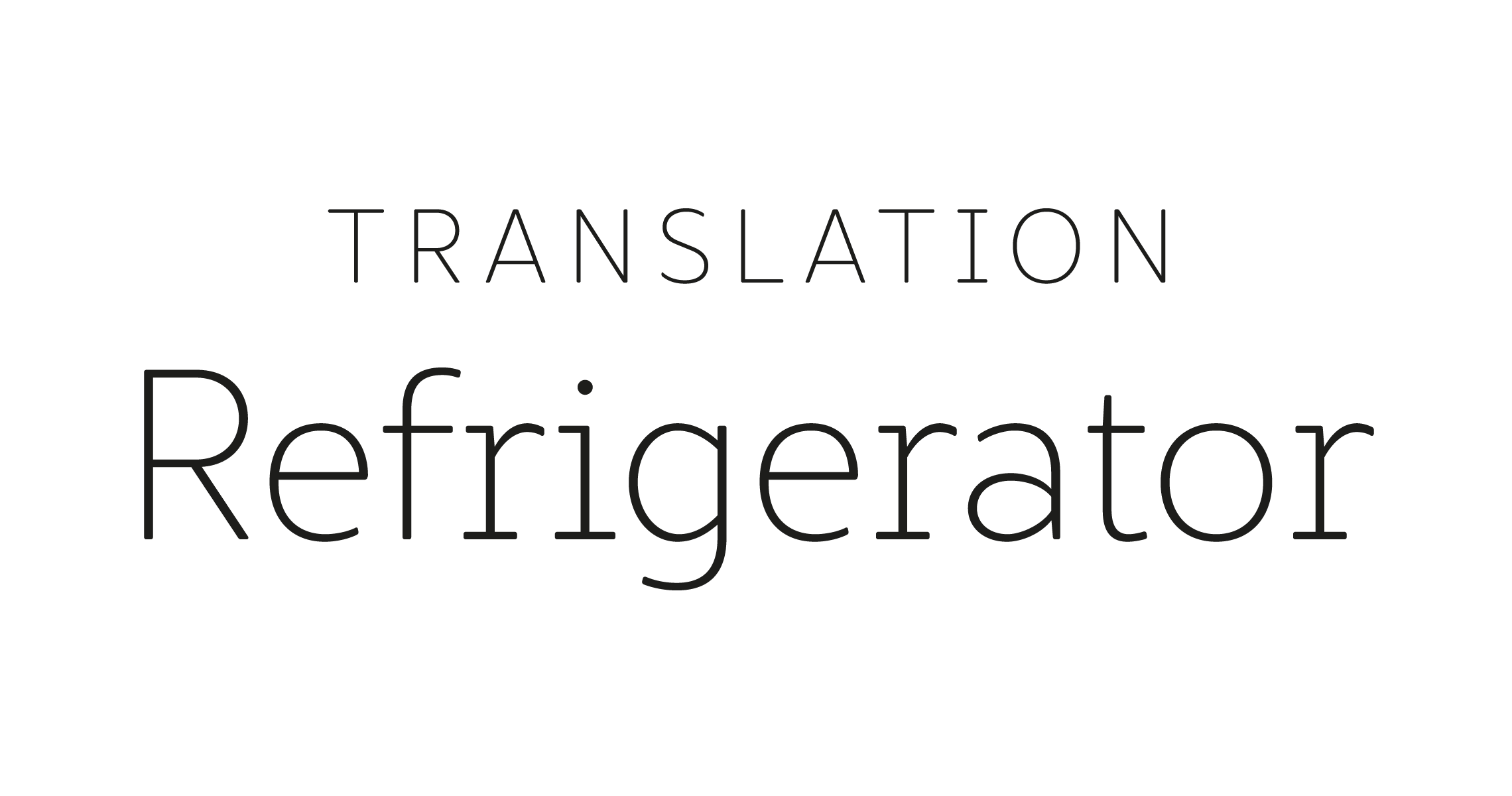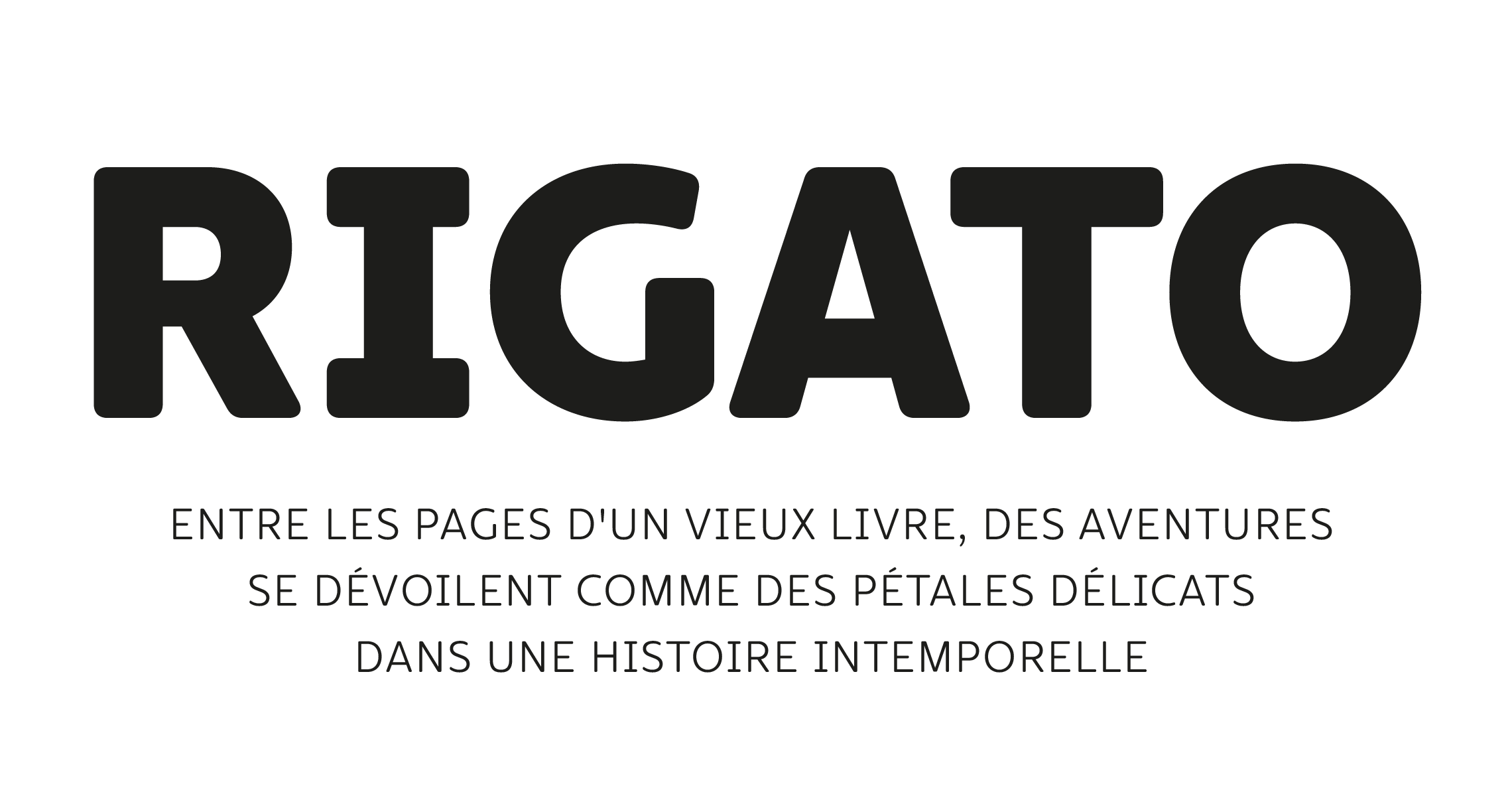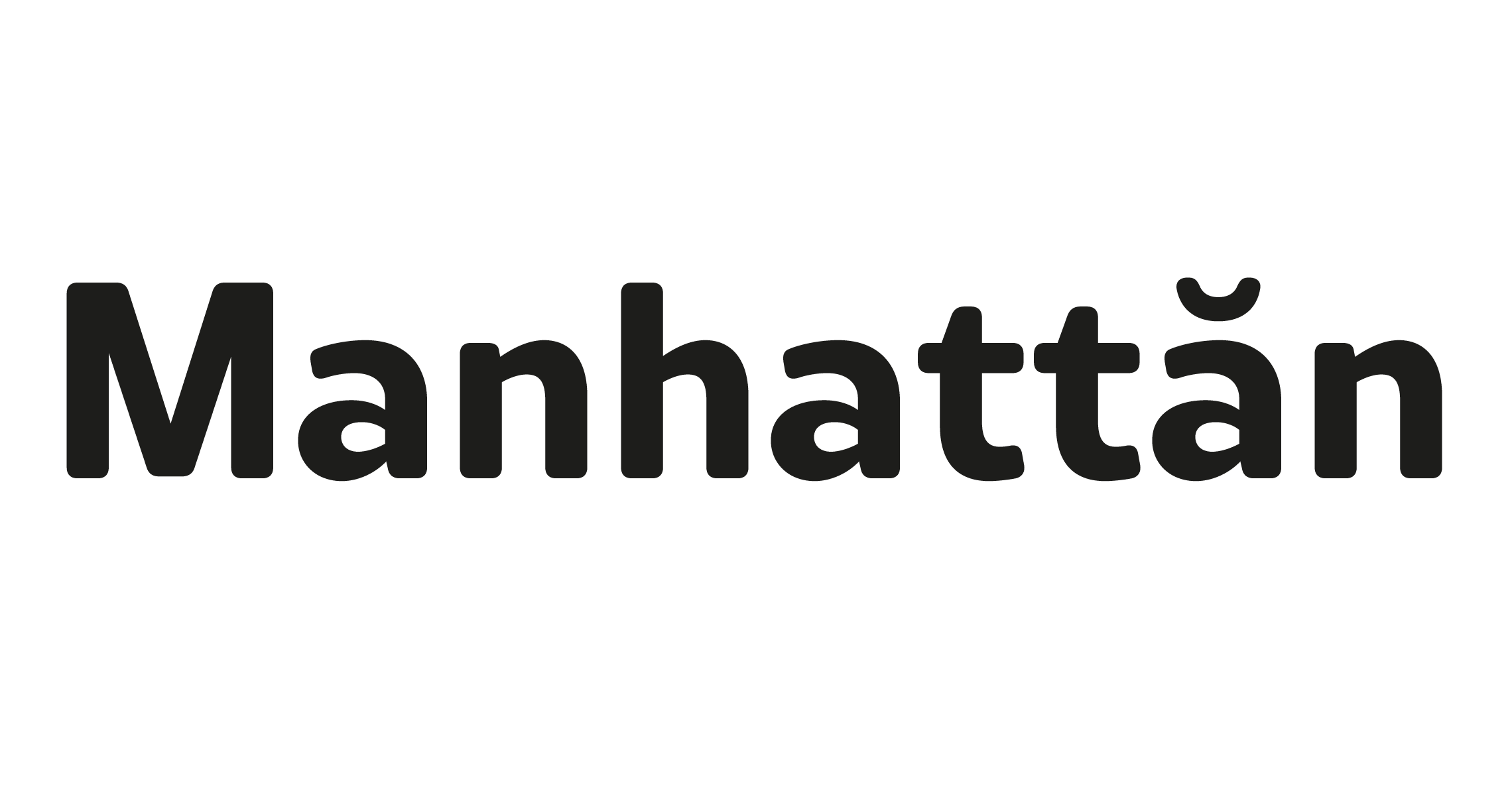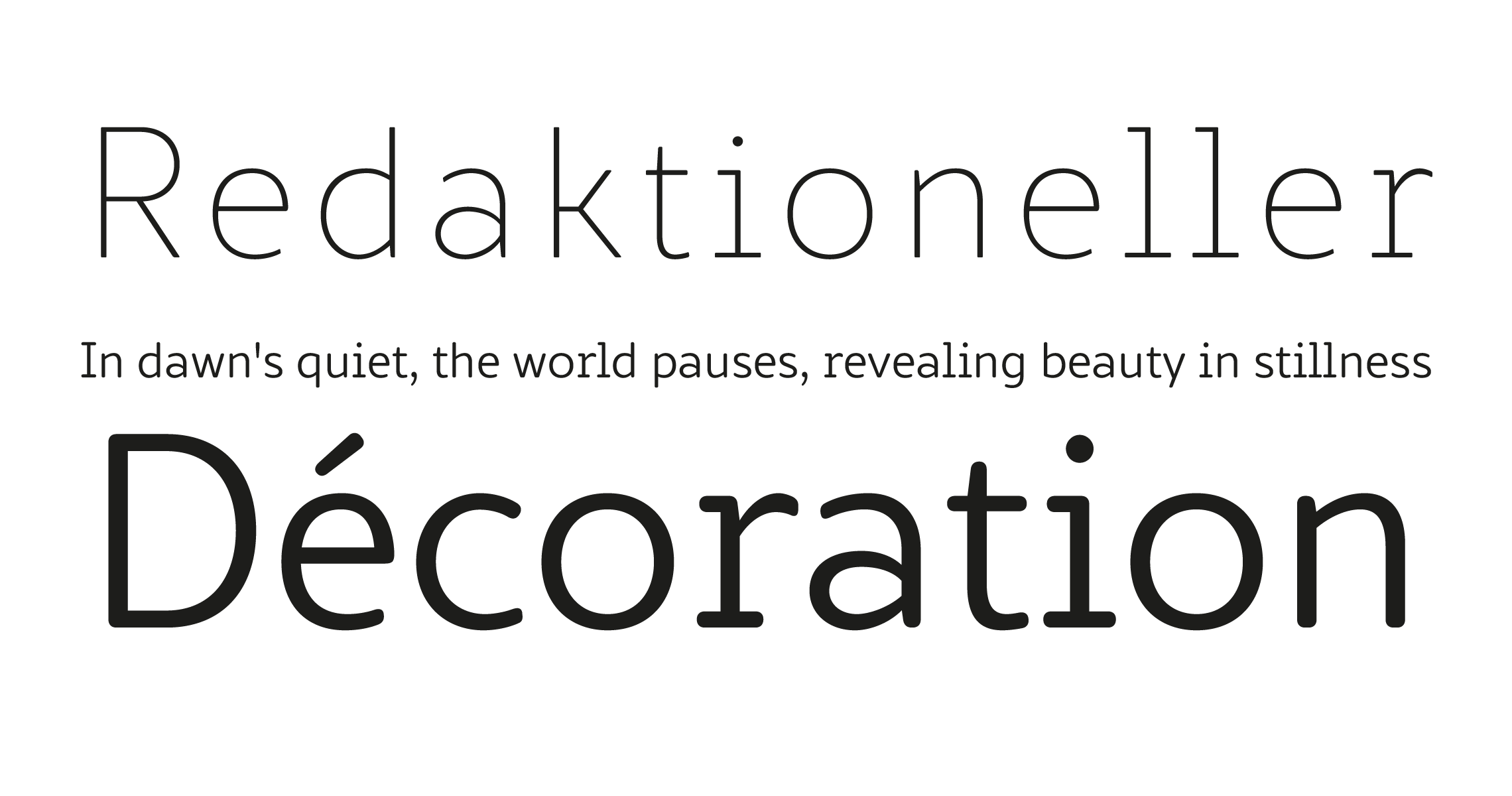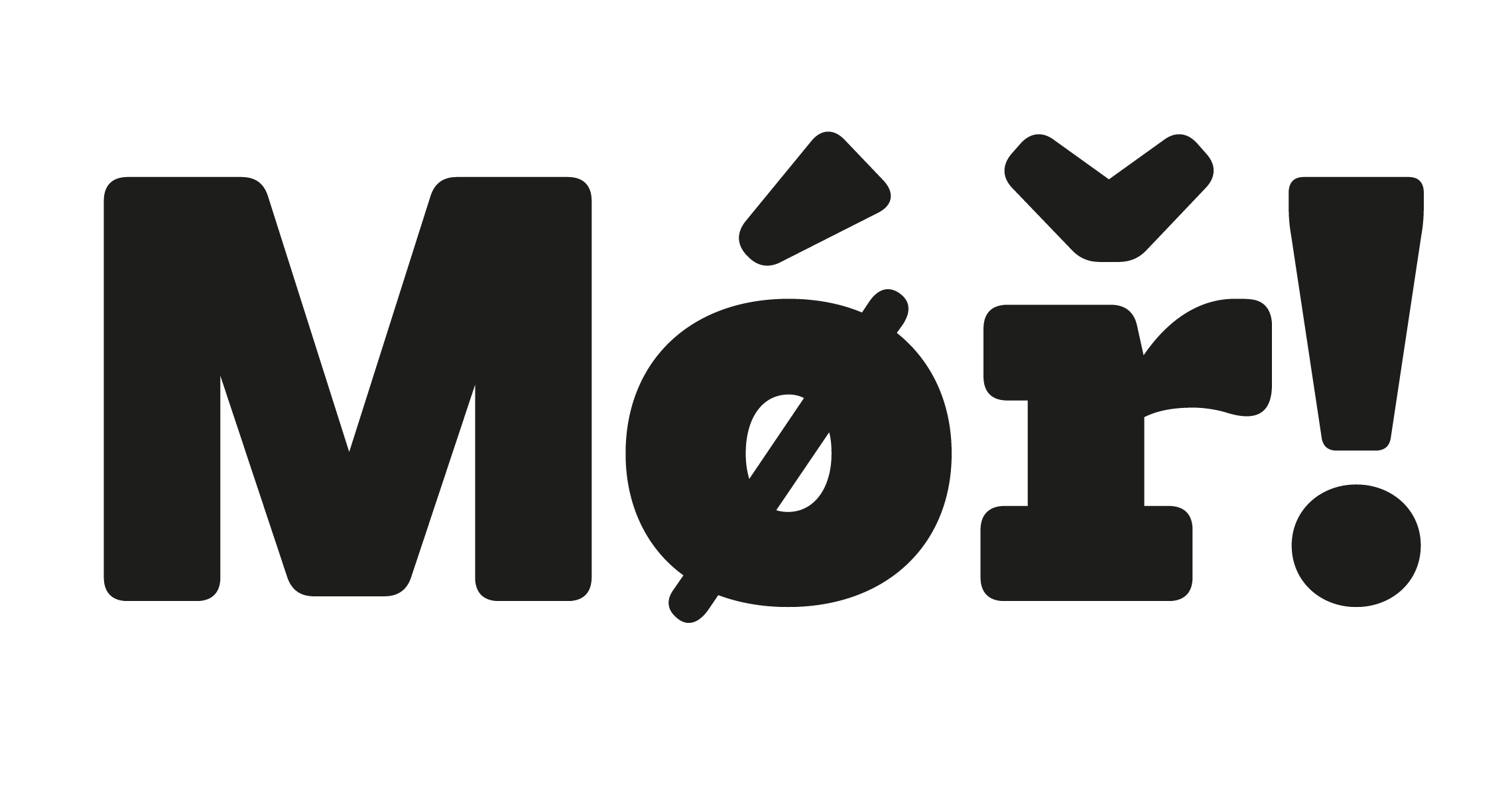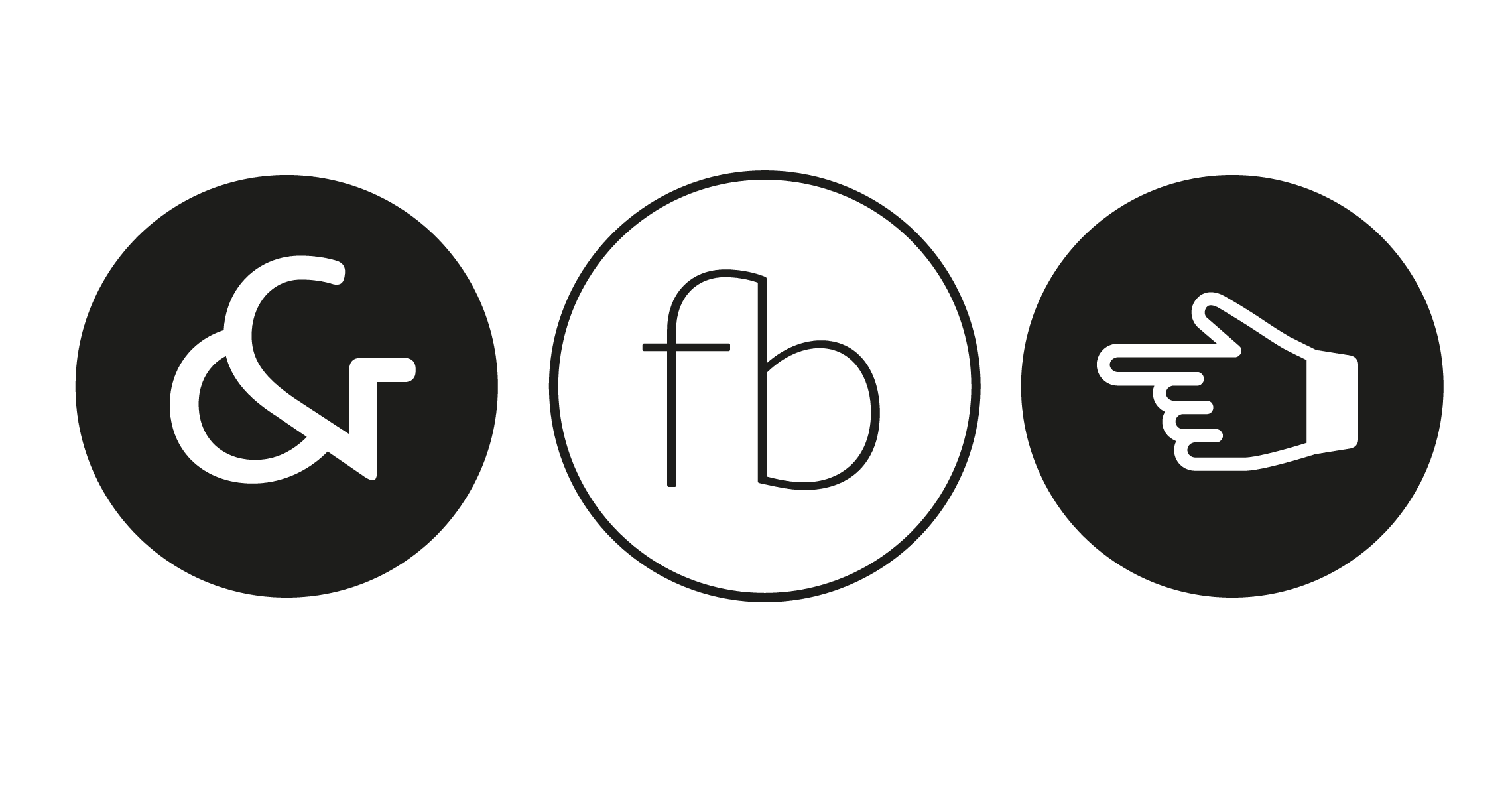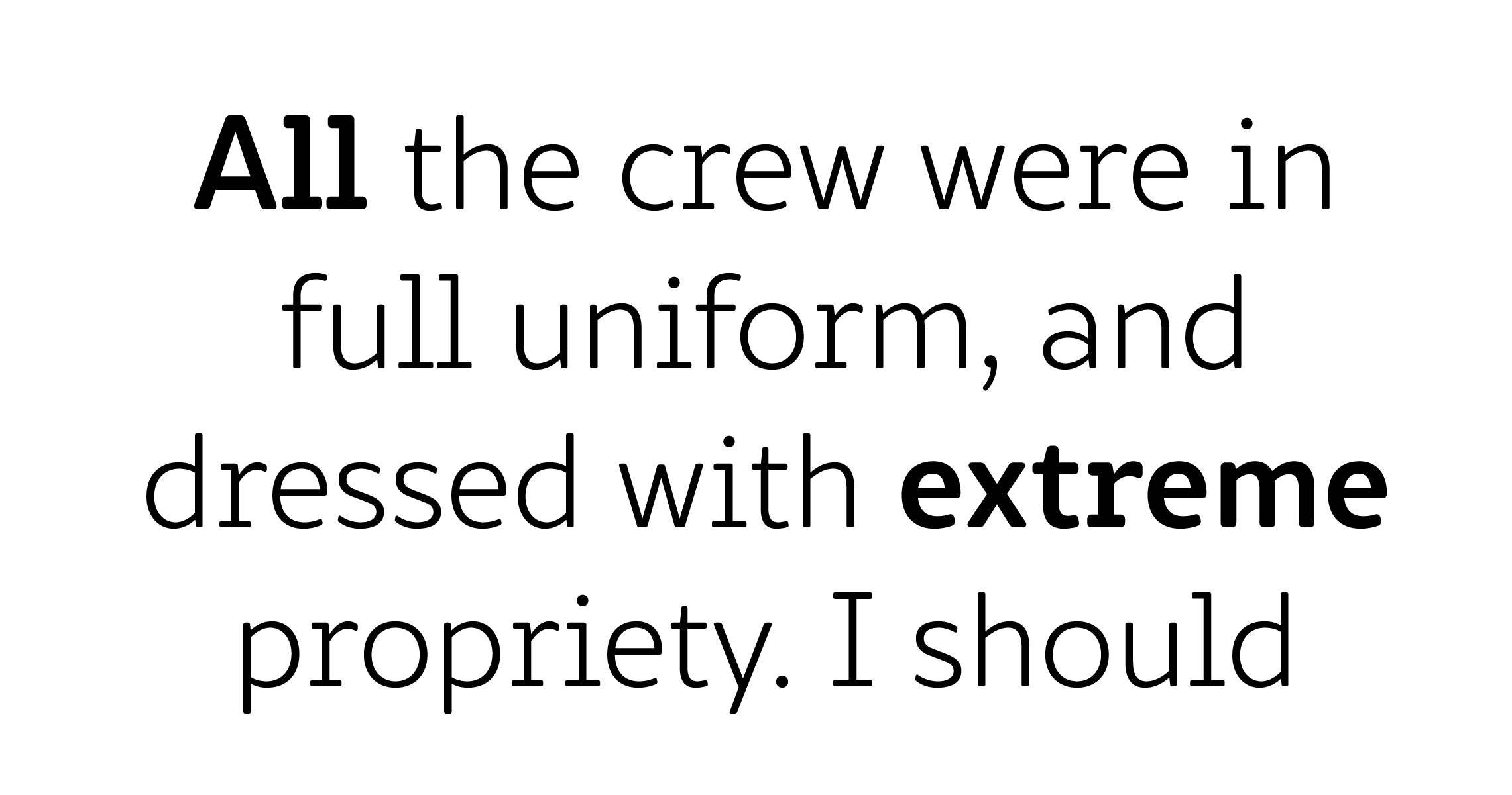
Marlon Pro
Marginalisant !
A rounded font family for all kind of project
Marlon Pro is a font family characterized by its round and modern appearance. It provides advanced typographical support and It comes in 9 weights with corresponding italics. Marlon Pro has true italics with an extended character set to support Central and Eastern European as well as Western European languages. It provides advanced Opentype functions with features such as case sensitive forms, small caps, standard ligatures, alternate characters, circled figures, pro kerning. For more information about this soft typeface and its professonal features, please download the PDF specimen.